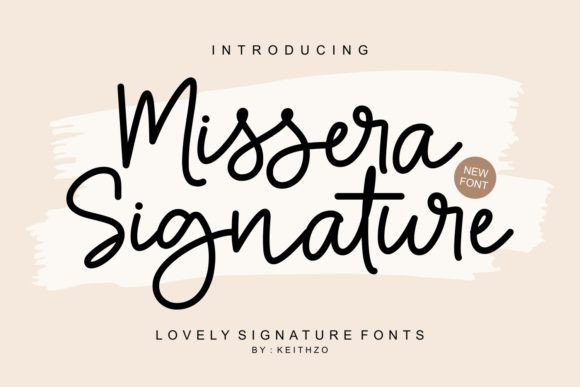
Introducing Missera Signature Font - the ultimate script font designed to elevate your creativity and enchant your audience. This font family, created by the talented Keithzo from 7NTypes, is the perfect choice for anyone seeking the best fonts for Cricut cuts.
With its cute and charming aesthetics, Missera Signature will instantly captivate your heart. The harmonious outlines of each letter bring a delightful touch to your designs, making them truly stand out from the crowd. Whether you're crafting a logo, invitation, or social media post, this font will effortlessly breathe life into your projects.
Unlock a world of possibilities with Missera Signature's extensive glyph library and ligatures. Thanks to its PUA encoding, you can effortlessly access and utilize all the wonderful variations this font offers. Let your imagination run wild as you experiment with the countless combinations and create truly unique and mesmerizing designs.
Missera Signature Font is not just a tool; it's an experience. It's a journey that allows you to express your emotions, tell your story, and leave a lasting impression on your audience. From romantic wedding invitations to playful branding, this font adapts seamlessly to any project, infusing it with a touch of elegance, warmth, and personality.
Indulge in the joy of creating with Missera Signature. Its versatility knows no bounds, making it a reliable companion for designers, artists, and crafters alike. Fall in love with the seamless curves, the delicate strokes, and the perfect balance that this font brings to your creative endeavors.